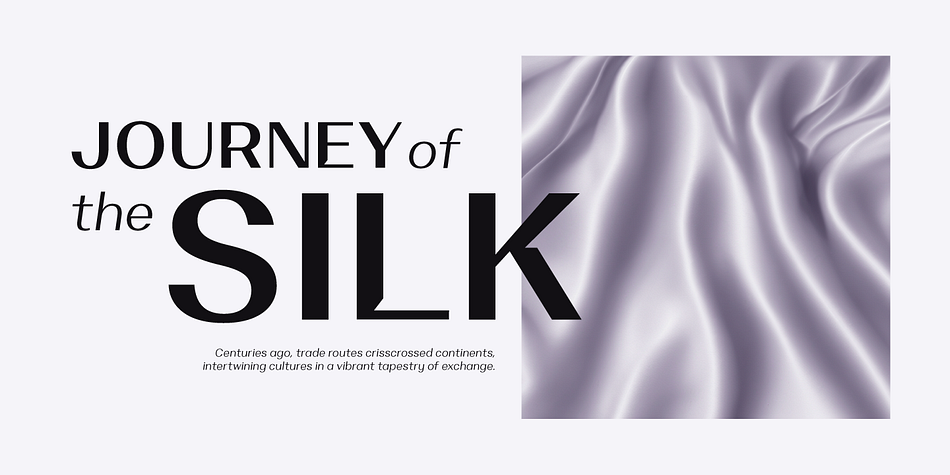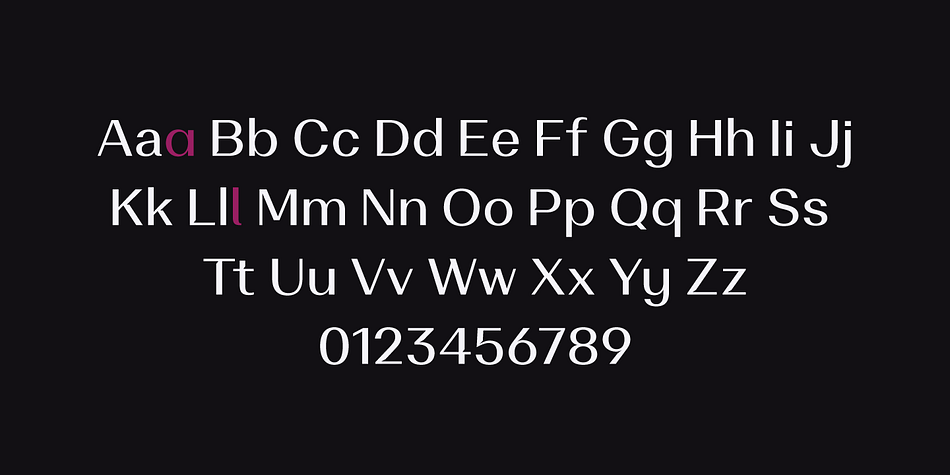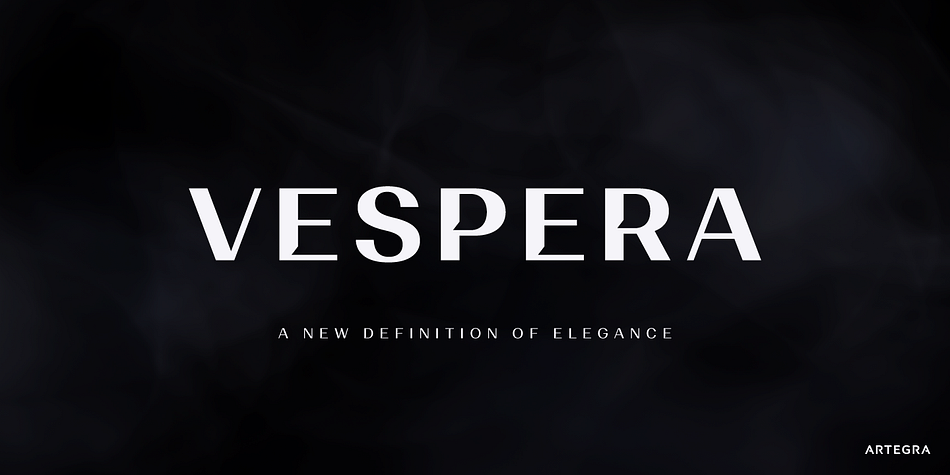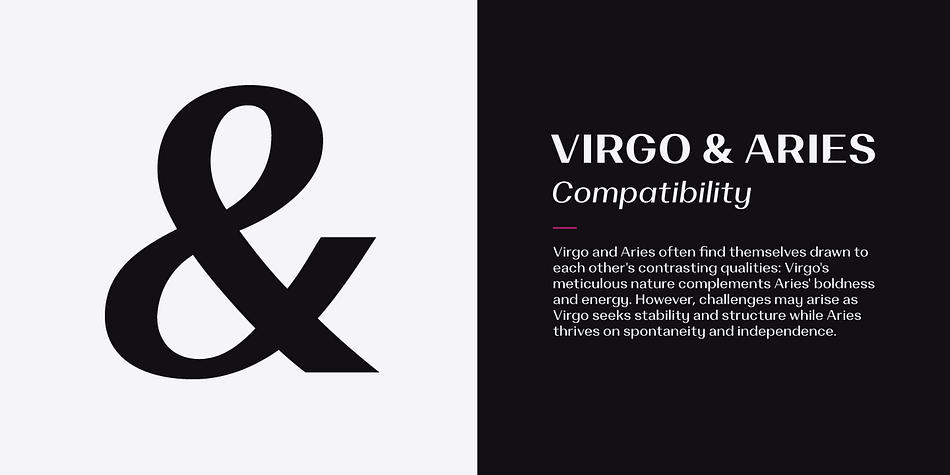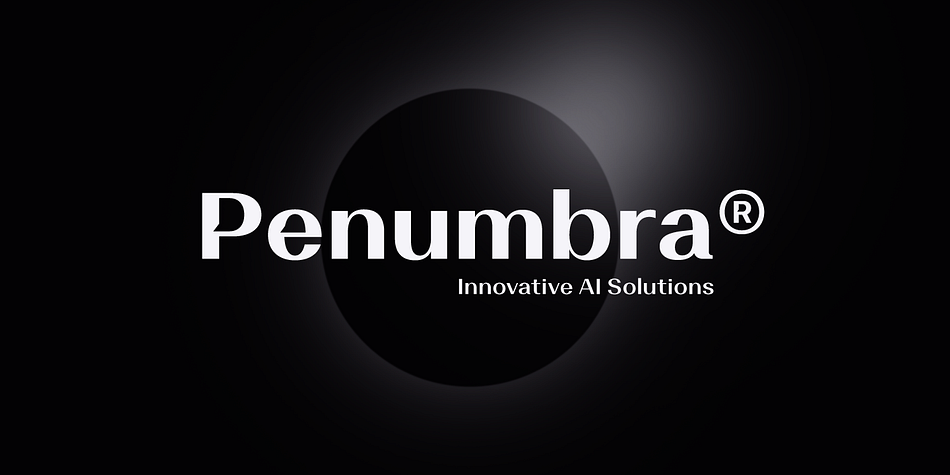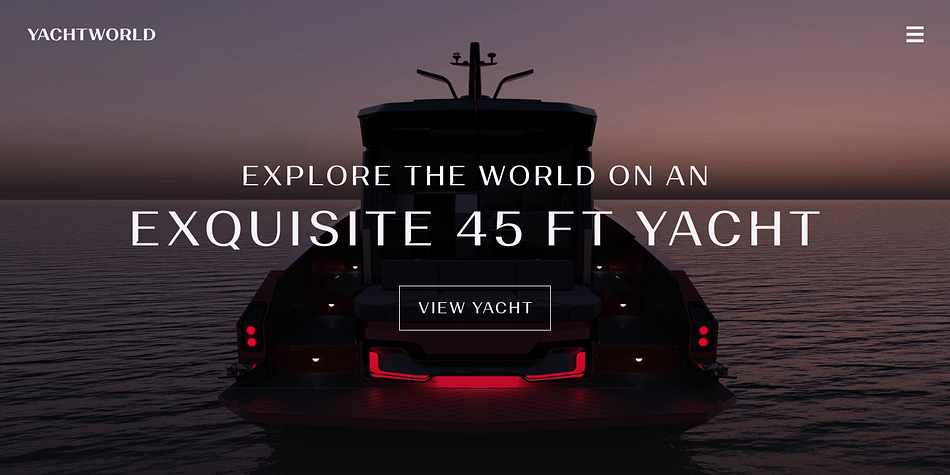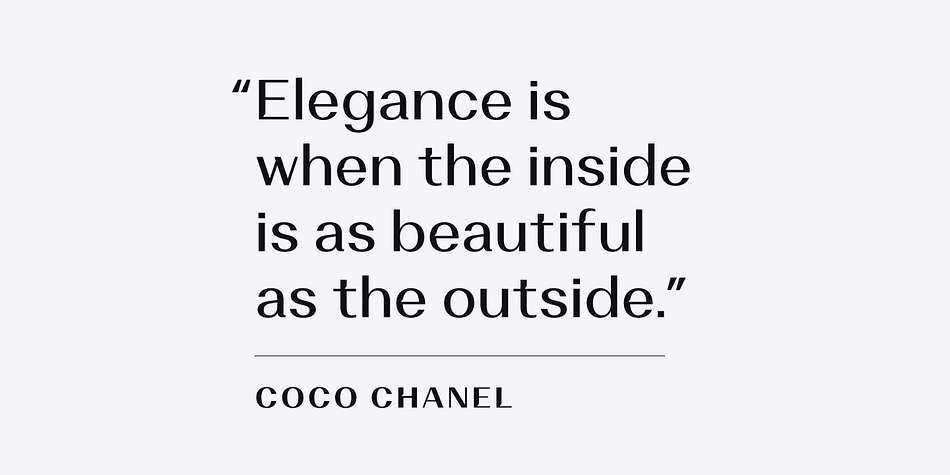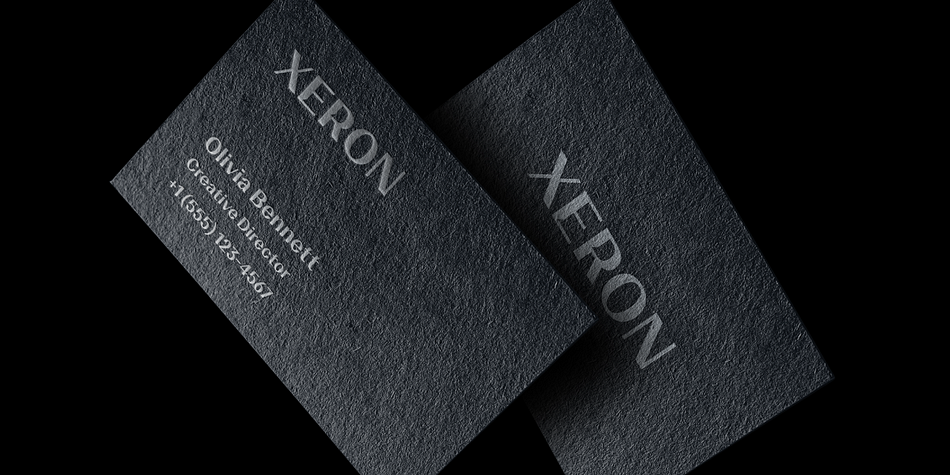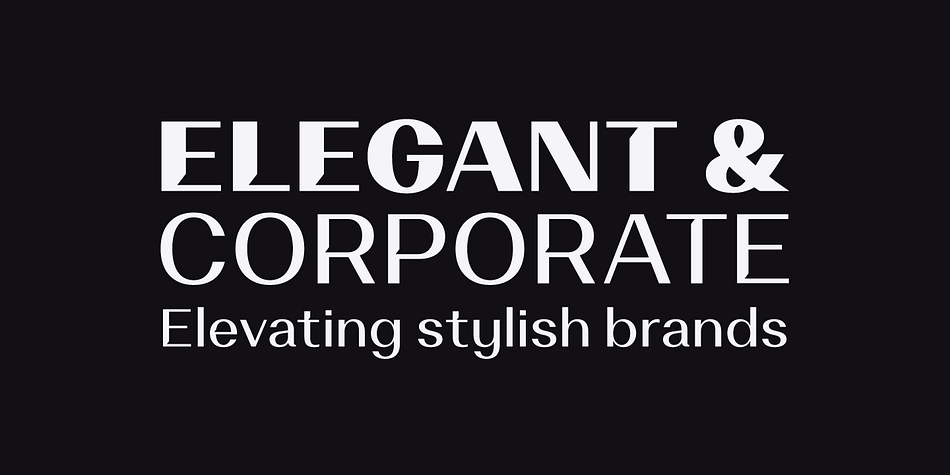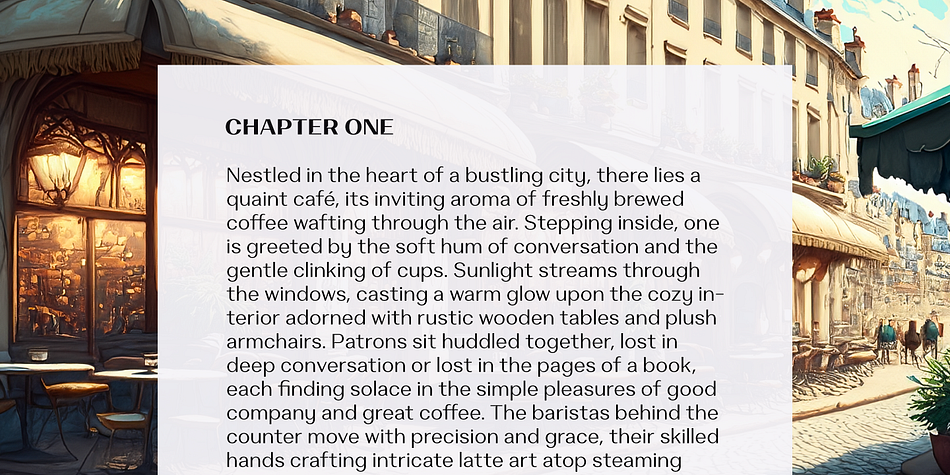
Vespera
Designed by Ceyhun Birinci, Vespera is a sans serif font family. This typeface has twelve styles and was published by Artegra.
Introducing Vespera, a meticulously crafted collection of 12 exquisite fonts designed to elevate your typographic creations to new heights of sophistication. With a harmonious balance of clean lines and graceful curves, this versatile font family offers a range of weights, from delicate regular to black, each accompanied by its elegant italic counterpart. Whether you’re designing for print or digital, Vespera exudes timeless elegance and effortless style, making it the perfect choice for luxury brands, editorial layouts, and refined designs. Elevate your projects with the understated beauty and refined craftsmanship of Vespera.